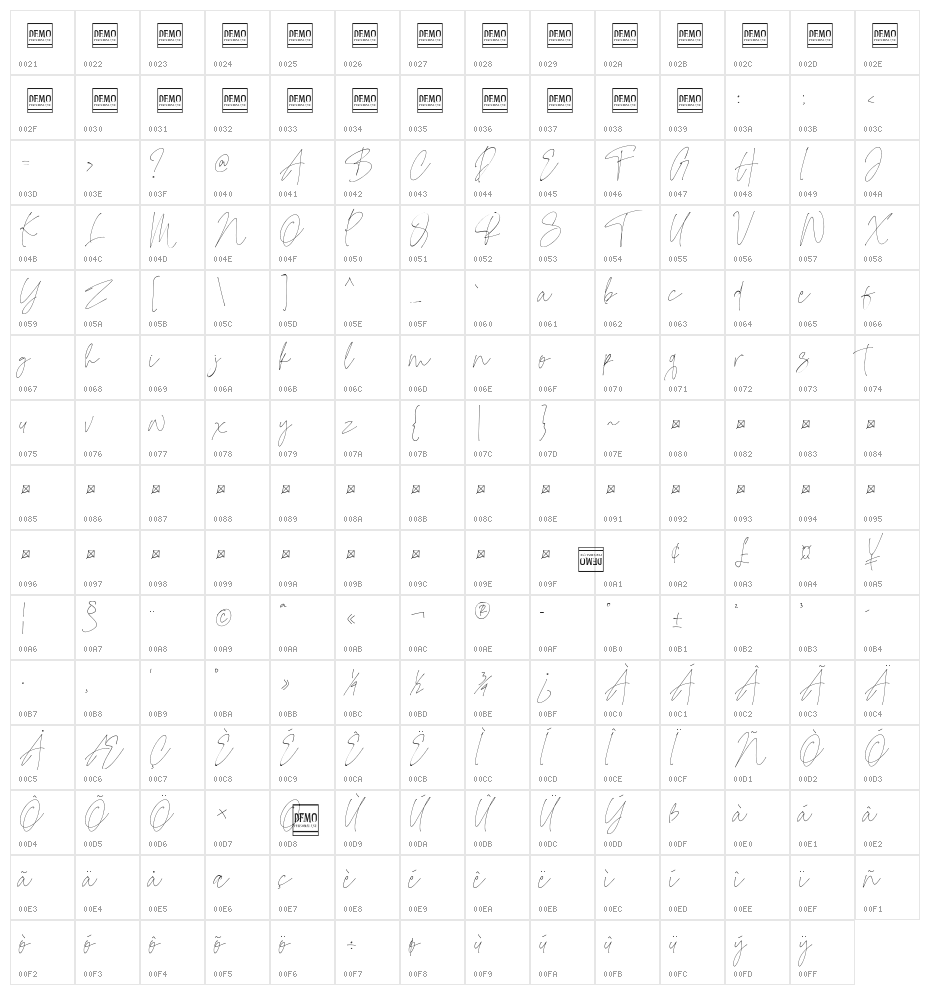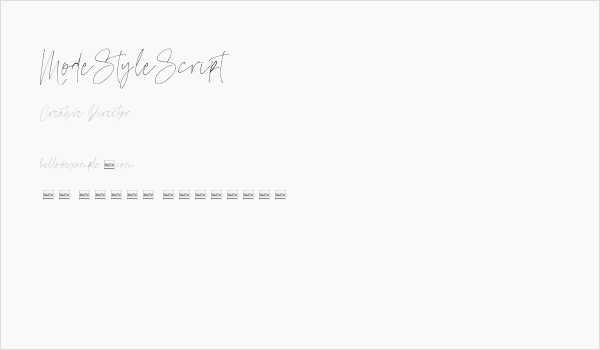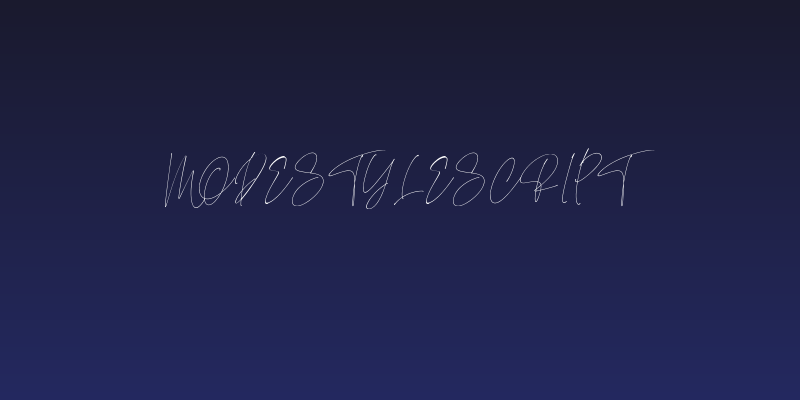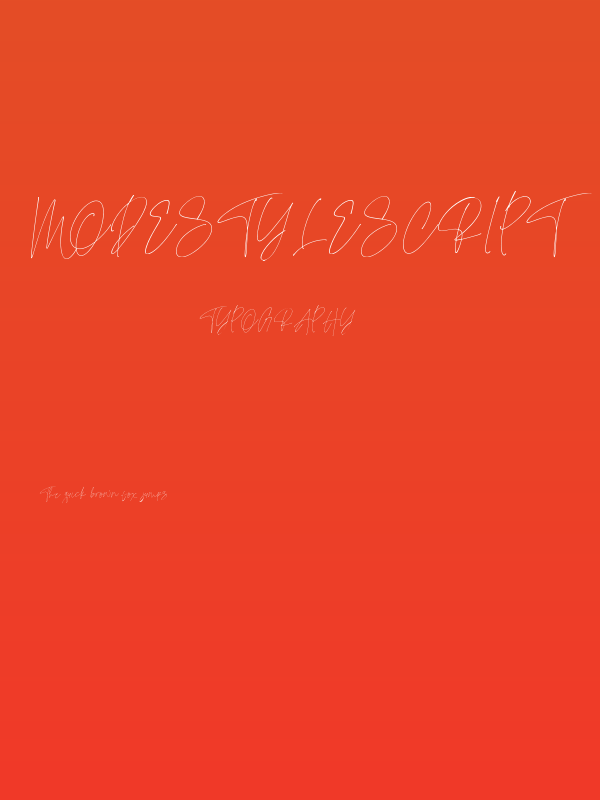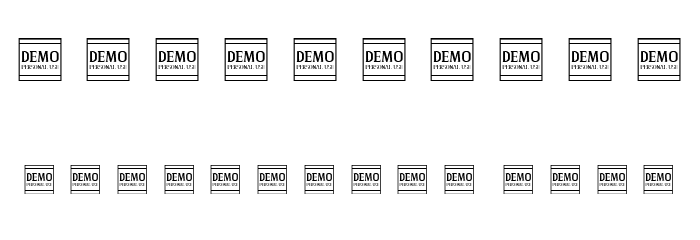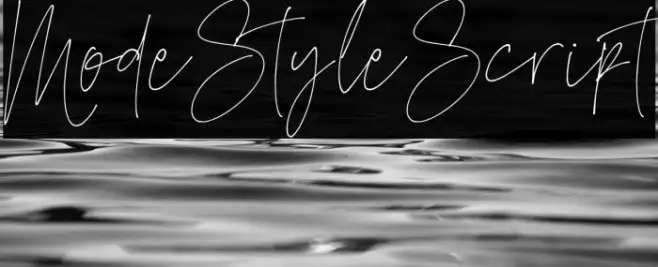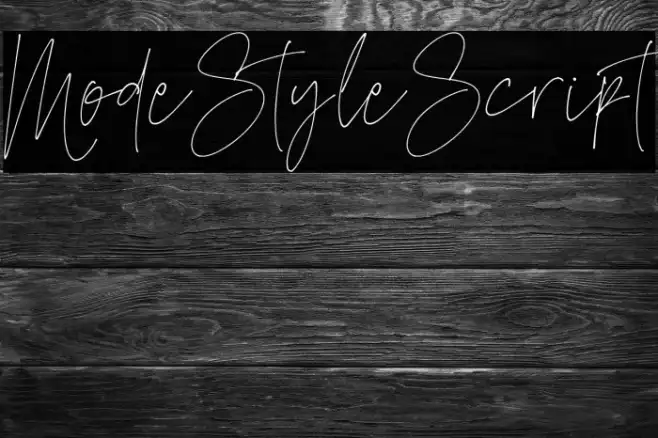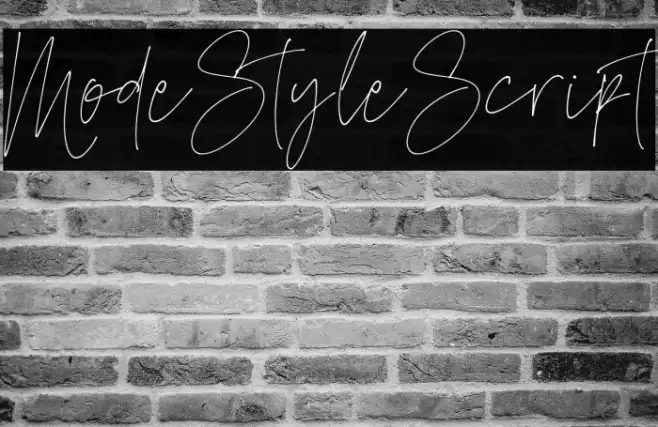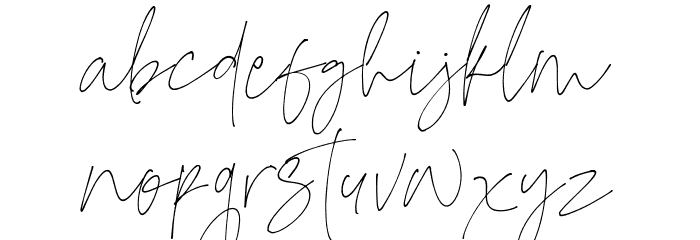
ModeStyleScript Font
ModeStyleScript Description
This font exudes a modern and stylish handwritten aesthetic, characterized by its fluid and cursive strokes. The letters are elegantly elongated with a natural flow, giving it a personal and artistic touch. The uppercase and lowercase letters maintain a consistent style, with slight variations in stroke width that add to its charm. The numbers and special characters are crafted with the same attention to detail, ensuring a cohesive look across all elements. This font is perfect for projects that require a personal and sophisticated feel, such as invitations, branding, and creative designs.
| Proposed Projects | Ideal for invitations, branding, creative designs, and personal projects. |